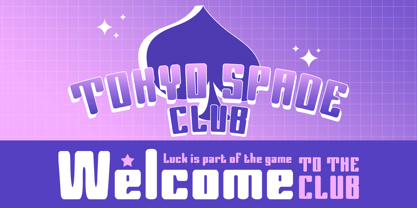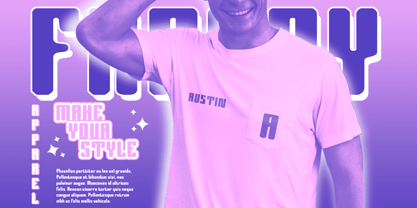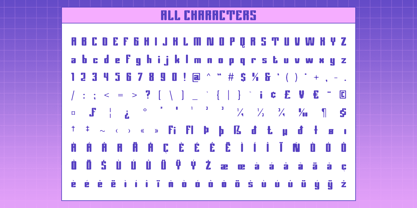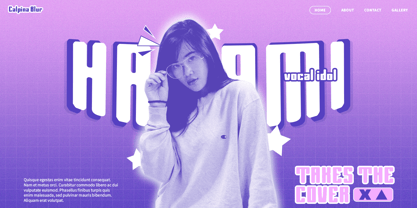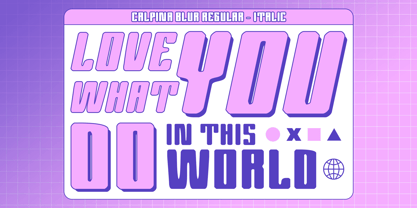
Calpina Blur
The Calpina Blur Font Family was designed by Trio Nazzar Saputra, Wahyu Hadi Yuana and published by Craft Supply Co. Calpina Blur contains 2 styles and family package options.
Calpina Blur: Funky Retro Style with a Modern Twist
Bold Sans-Serif with Blur Effect
Calpina Blur is a bold sans serif font that combines a funky, retro style with a unique blur effect. This fusion creates a captivating appearance that adds a dynamic and intriguing element to any design.
Distinctive and Eye-Catching
Designed to stand out, Calpina Blur features thick and clear characters with a retro vibe and a soft blur effect. This combination makes it perfect for creative designs aiming to showcase bold and distinct elements.
Ideal for Creative Projects
Calpina Blur is ideal for posters, album covers, and branding designs that require a modern vintage touch. Its funky and retro style, enhanced by the blur effect, captures attention and provides a memorable visual impact.
Enhance Your Visual Appeal
With Calpina Blur, your designs gain a unique and captivating look. The blur effect adds depth and movement, while the retro style brings a nostalgic yet modern feel, making your projects truly stand out.
Conclusion
In conclusion, Calpina Blur is a bold sans-serif font with a funky and retro style, combined with a blur effect. Perfect for creative projects like posters, album covers, and branding designs, it offers a unique and captivating appearance that ensures your designs make a lasting impression.